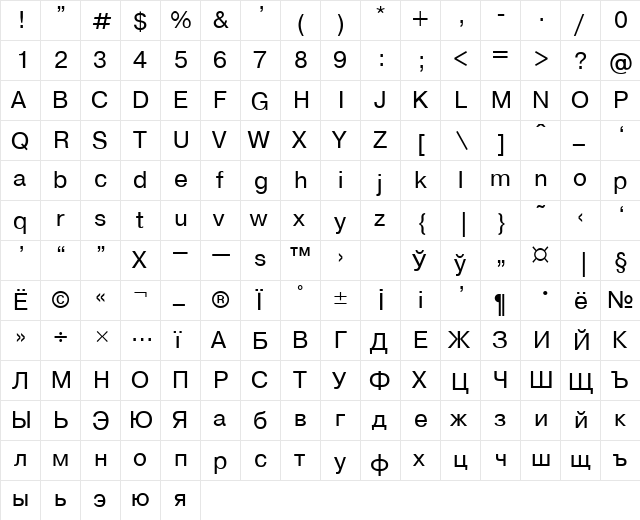
ft86 Plain Font Preview
ft86 Plain
Design Context for ft86 Typeface
ft86 takes a measured approach to typography — its balanced proportions and neutral character make it a reliable workhorse for both digital and print work.
Pro Tip: Use ft86 in both headline and body roles to test its range before committing to a single application.